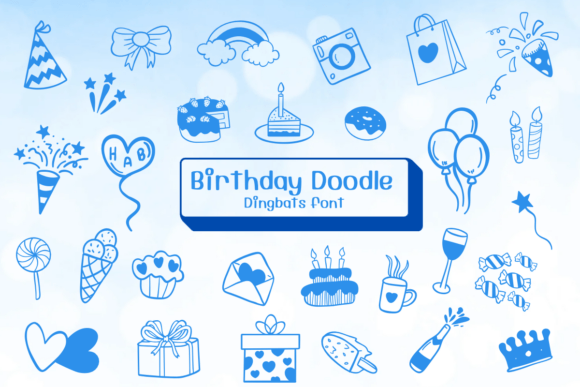
The Ultimate Birthday Doodle Font: Adding a Dash of Fun to Your Designs
I still remember the time I was working on a birthday party invitation for a client’s kid. I had the design all planned out, but something was missing. I wanted to add a playful touch, something that would make the invitation stand out. That’s when I stumbled upon the Birthday Doodle Dingbats Font. It was like a breath of fresh air! 🎉 With its lively and cheerful set of birthday-themed icons, I was able to add a fun touch to the invitation, making it a hit with the client and the birthday boy.
- 🎉 Variety of icons: The Birthday Doodle Dingbats Font comes with a wide range of birthday-themed icons, including party hats, balloons, cakes, candles, gifts, and more.
- 👍 Scalable: The icons can be scaled up or down without losing any quality, making them perfect for various design projects.
- 🤔 Limited color options: The font comes in a single color, which might limit its use in certain design projects.
The Story Behind the Font: Designer Inspiration
The Birthday Doodle Font was designed by a team of creatives who wanted to bring a touch of fun and playfulness to design projects. Inspired by the joy and excitement of birthday celebrations, they created a font that would make it easy to add a dash of personality to any design. With its lively and cheerful icons, the Birthday Doodle Font is sure to bring a smile to anyone’s face.
| Font Name | Birthday Doodle Font |
| Author | Ketsarin |